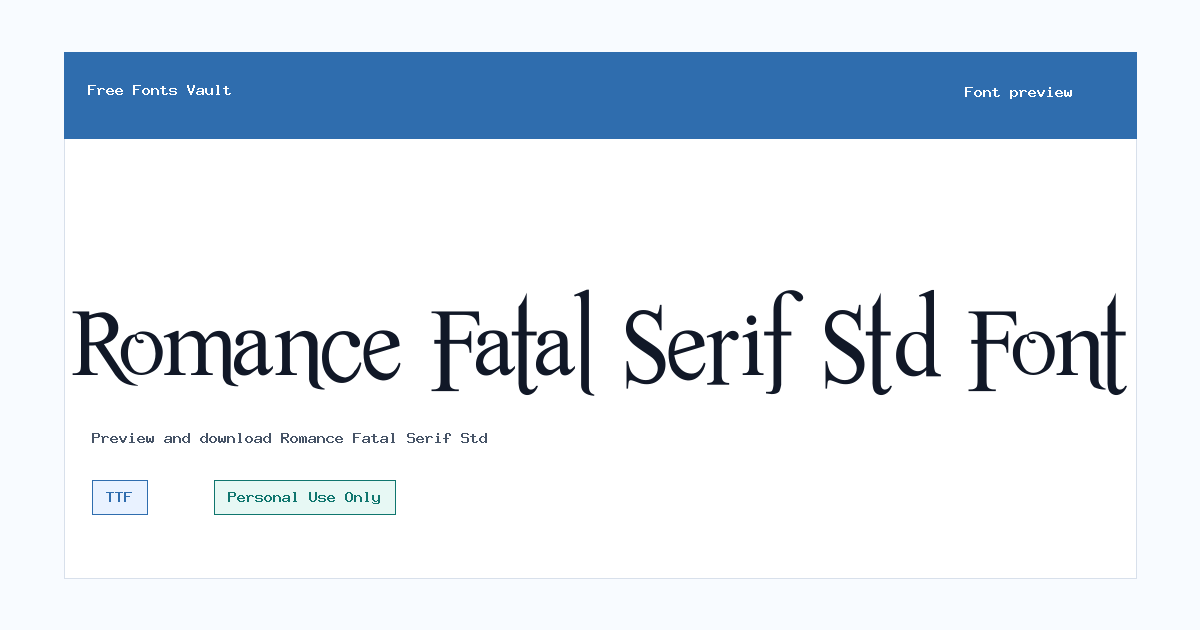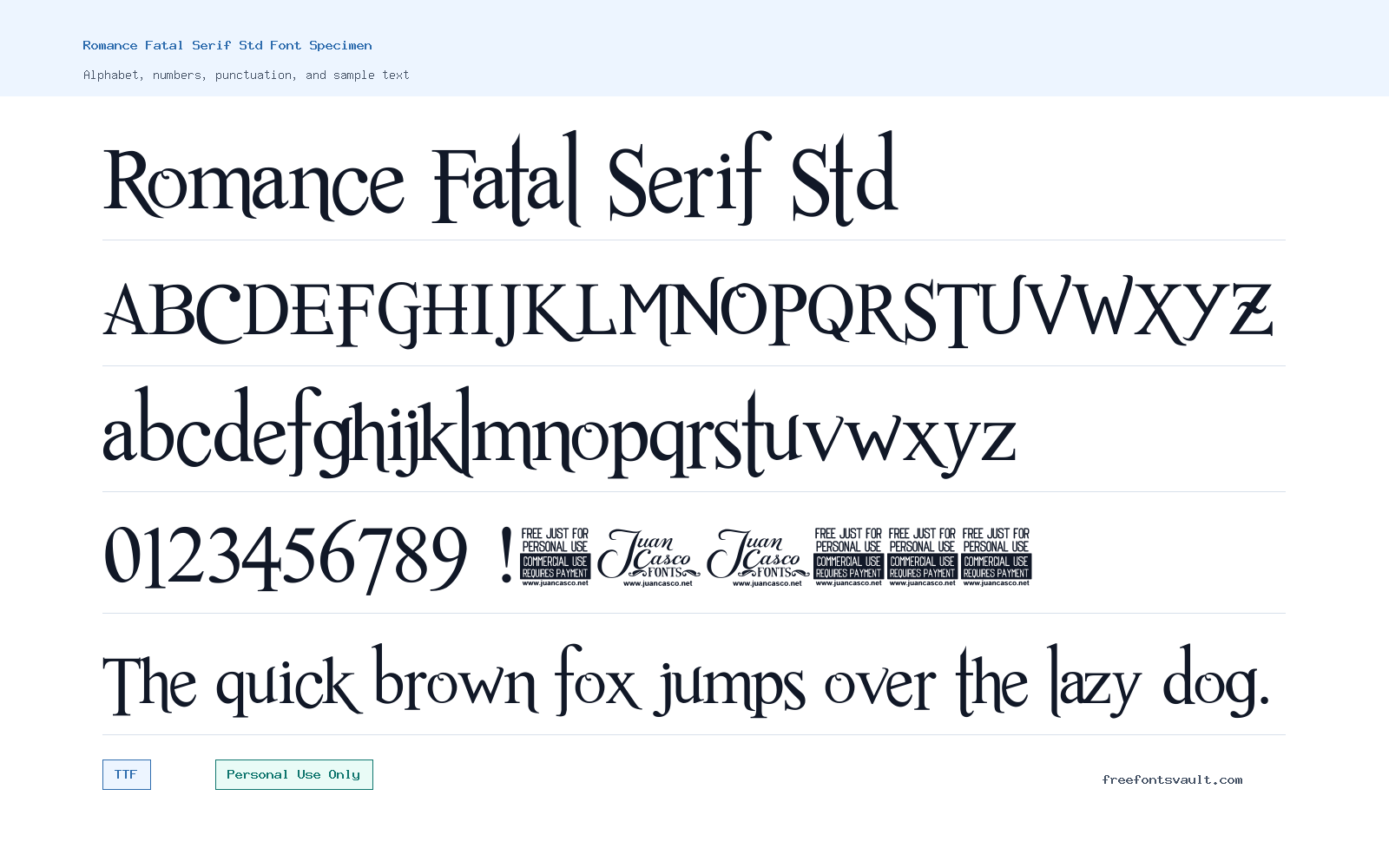
Romance Fatal Serif Std
Romance Fatal Serif Std is a serif font family with a regular TTF style for personal projects. Use the preview to test your own wording before downloading, especially if you plan to use it in titles, invitations, or decorative text.
About Romance Fatal Serif Std
Romance Fatal Serif Std is listed as a regular, normal-weight serif font. Because only one TTF file is included, it is best treated as a single-style display choice rather than a full text family with bold, italic, or extended weights. Try it with short words, names, headings, and sample phrases to see how the spacing and letter shapes work at different sizes.
This font is a better fit for short pieces of text than long reading paragraphs. It may work well for personal cards, mood boards, poster-style headings, scrapbook titles, quote graphics, or test layouts where a serif tone is needed. If you use it with body text, pair it with a simple, readable sans serif or neutral serif so the design stays clear.
- Personal invitation drafts, quote graphics, and decorative headings
- Short titles, name treatments, poster mockups, and preview experiments
Does Romance Fatal Serif Std include bold or italic styles?
Only one regular style is listed, with normal style and 400 weight metadata.
What should I use Romance Fatal Serif Std for?
Use it for short personal text such as titles, invitations, quote images, and design mockups. Test longer text carefully for readability.
Who designed Romance Fatal Serif Std?
The designer/foundry information is listed as Juan Casco.